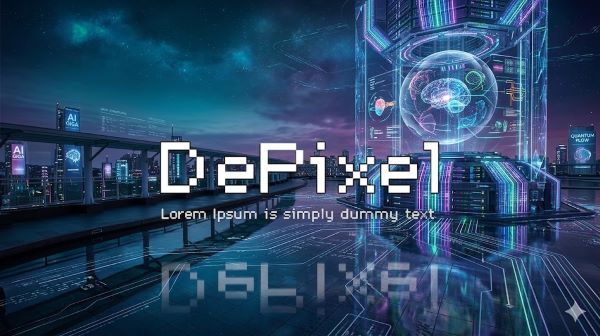
DePixel Font
DePixel is a free bitmap font family built on a 9px grid and inspired by Apple’s classic Geneva system font — faithfully recreating its aliased, pixelated appearance at the small sizes where Geneva’s charm truly lived, resulting in a typeface that carries the warm, nostalgic character of early Macintosh screen typography in a carefully crafted modern package. The family spans 12 files including Klein, Schmal, Breit, Halbfett, and Breit Fett variants.
Its broad range of widths and weights makes it exceptionally versatile for pixel art UIs, retro computing aesthetics, lo-fi interface mockups, and any design context that calls for small-screen-optimized text with genuine vintage personality. Browse our full library of free fonts and discover more distinctive typefaces crafted by independent designers around the world.